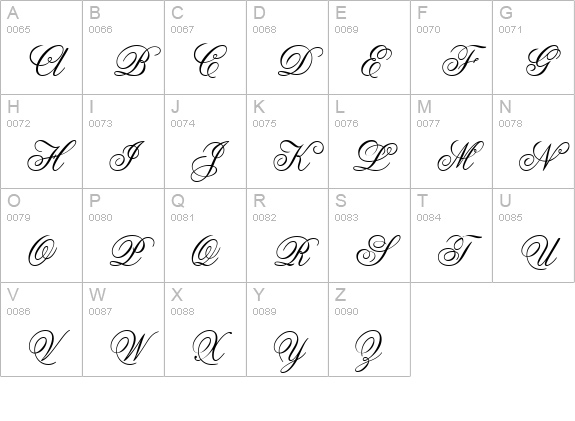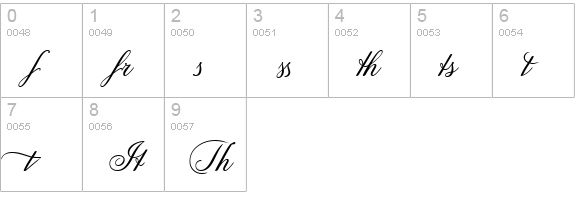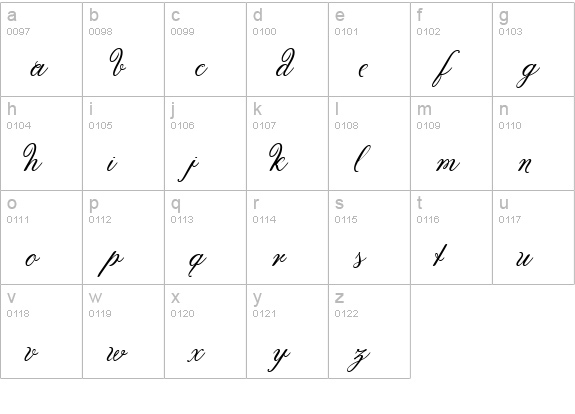
Anglia Script Enhancements is a beautifully crafted font that exudes elegance and sophistication. With its delicate curves and stylish flourishes, this font is perfect for adding a touch of class to any project. Whether you're designing wedding invitations, creating a logo, or working on a branding project, Anglia Script Enhancements will elevate your design to the next level. The best part? Anglia Script Enhancements is completely free to download at FontsMarket.com. This means you can access this stunning font without having to worry about breaking the bank. Don't miss out on the opportunity to elevate your designs with this exquisite typeface. Download Anglia Script Enhancements today and see the difference it can make in your projects.